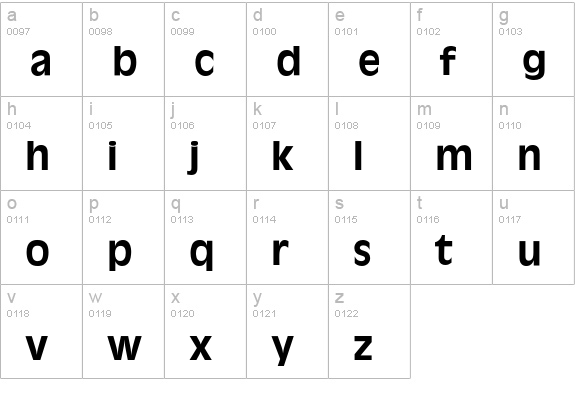
Antique Olive Medium is a balanced, medium-weight variant in the Antique typeface family \xE2\x80\x94 well suited to sub-headlines, navigation, and balanced editorial work.
Antique Olive Medium is a timeless and elegant font that exudes sophistication and charm. With its classic yet modern design, this typeface is perfect for adding a touch of refined elegance to any project. Its clean lines and balanced proportions make it highly versatile, ideal for both headings and body text. What makes Antique Olive Medium even more appealing is that it is available for free download at FontsMarket.com. This means that you can easily enhance your designs with this exquisite font without any cost. Don't miss out on the opportunity to elevate your projects with the beauty of Antique Olive Medium. Download it now and experience the seamless blend of tradition and modernity in typography.